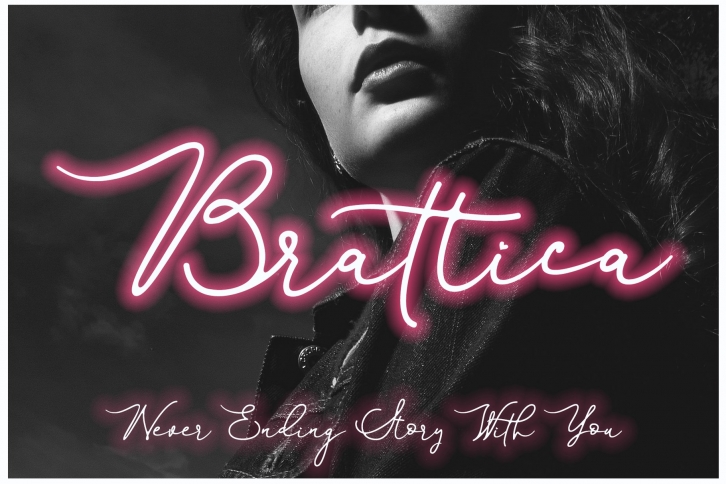
Brattica Signature Handwritten is a beautiful font that was designed by aldedesign. It's a great choice for designers and creatives who need such a font. It was released on April 17, 2021 and the file size is 17.49 MB. Brattica Signature Handwritten may give a more youthful, expressive and casual look to your project. It is a very beautiful, refined, elegant, and high-quality font.